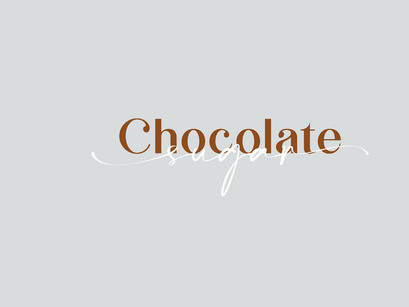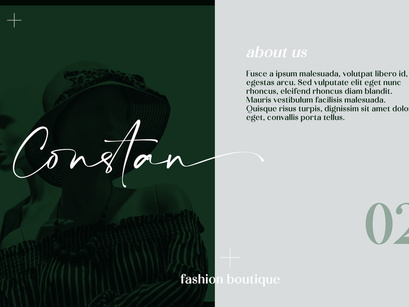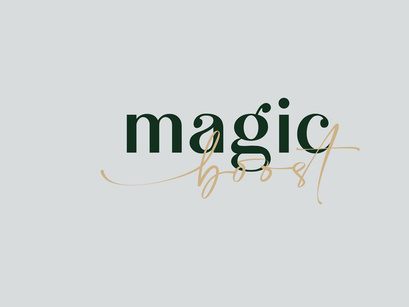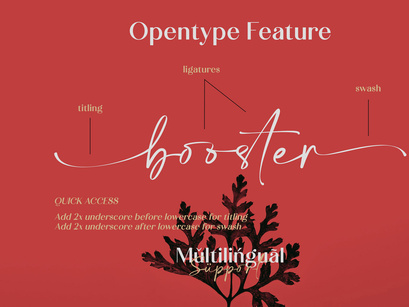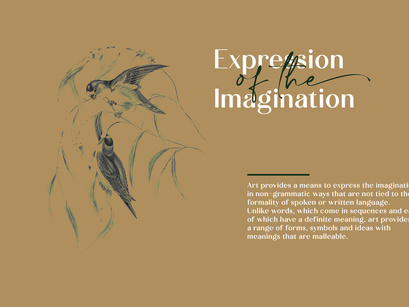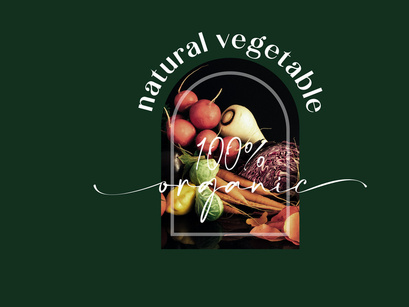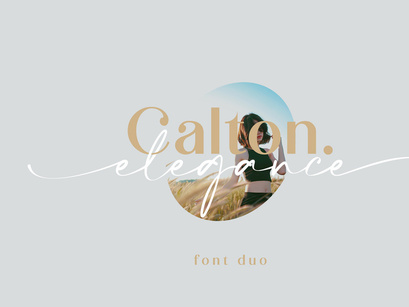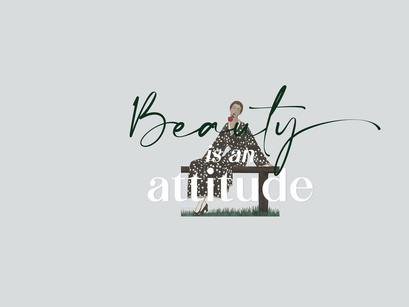
Calton Elegance Font Duo
Calton Elegance is a perfect mix modern calligraphy and sans-serif font. It was created to help you designing makes gorgeous logos, posters, wedding invitations, blog posts, social media, and more!
Script and Sans Serif (Regular-Italic)
Ligatures
Swash
Titling
Uppercase and Lowercase letters
Numbering and Punctuations
Also Multilingual Support
Quick access swash and titling with ligature, add 2x underscore before or after lowercase a-z.